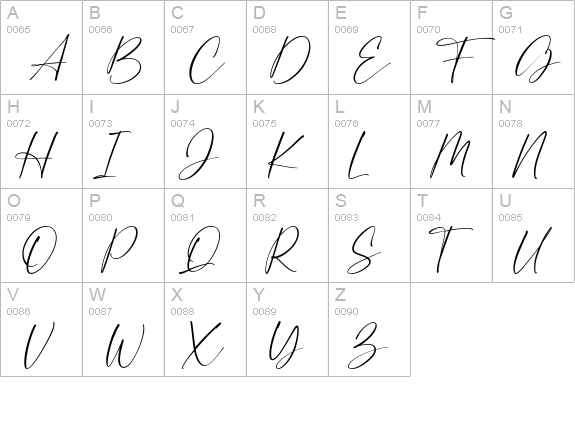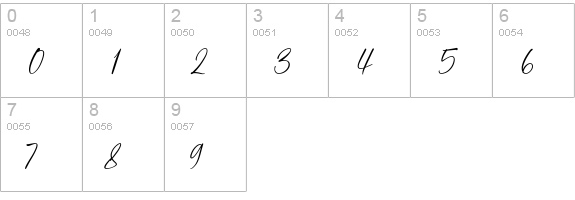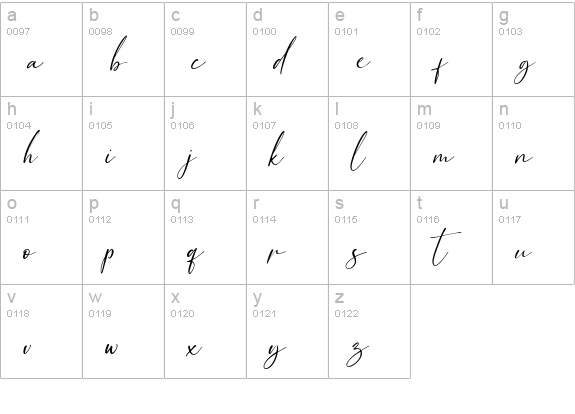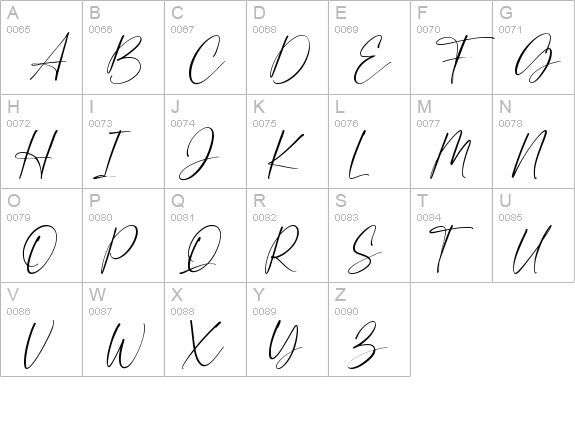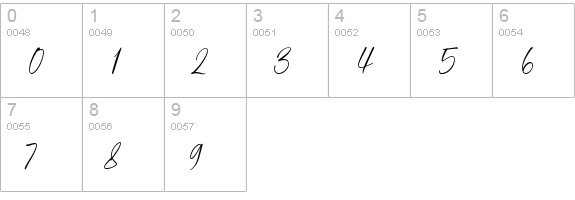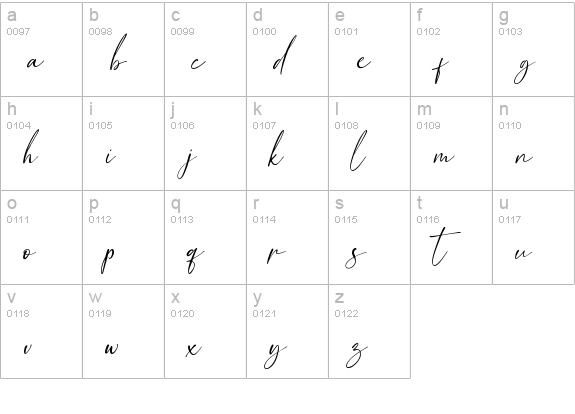
Breattogis Handwritten Font is a charming and versatile typeface that exudes a warm and friendly vibe. Its elegant curves and flowing strokes give off a sense of creativity and whimsy, making it perfect for a wide range of design projects. Whether you're looking to add a personal touch to invitations, greeting cards, or branding materials, Breattogis Handwritten Font is sure to make a lasting impression.